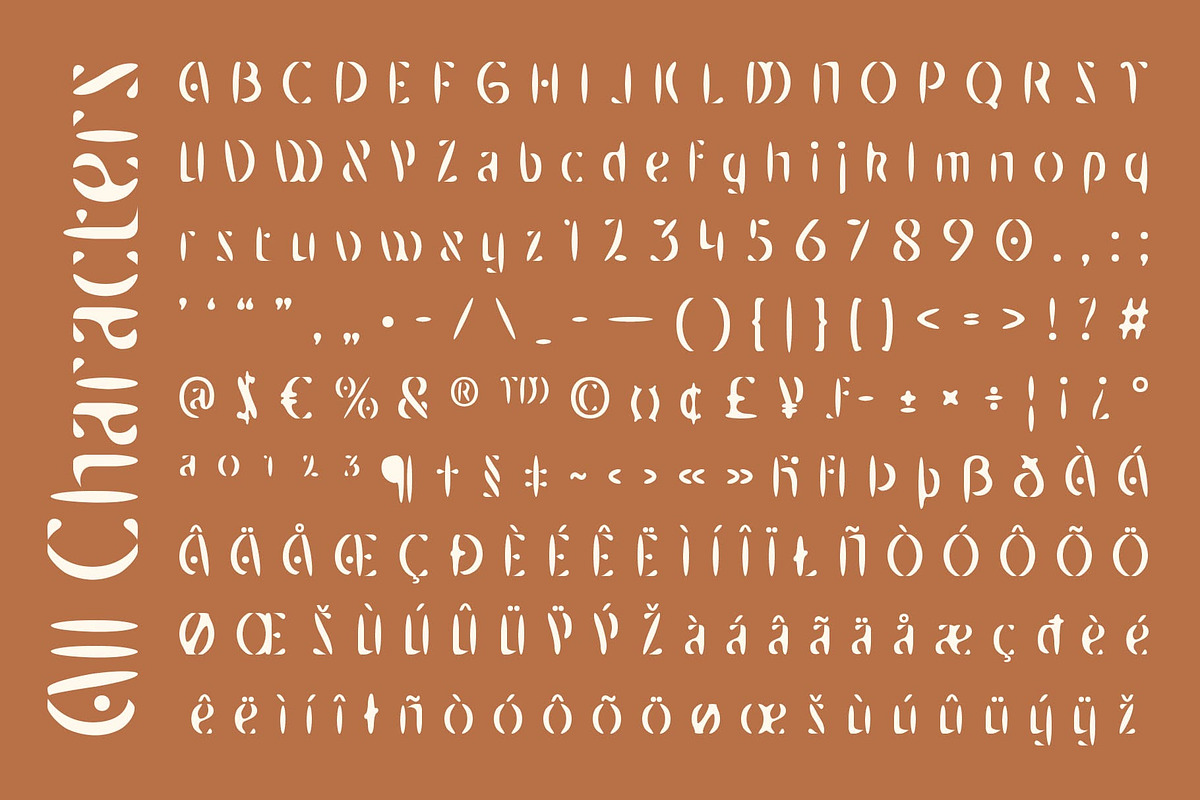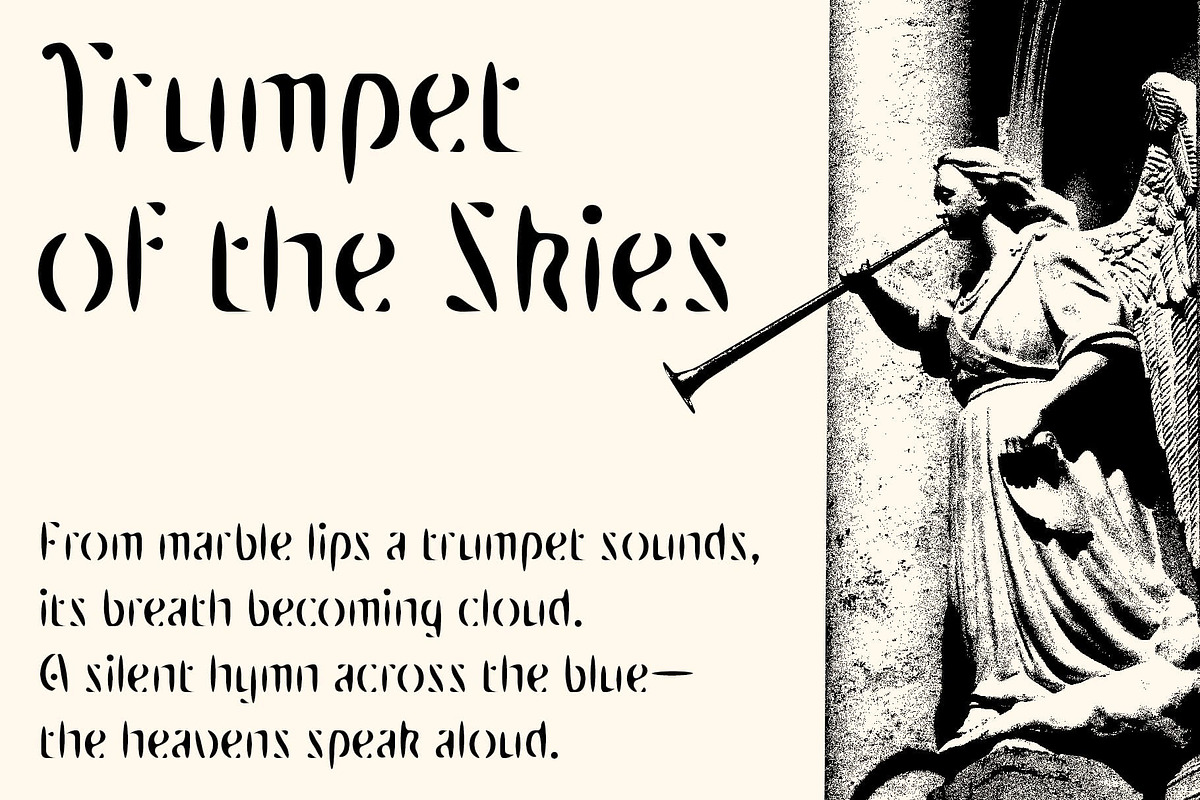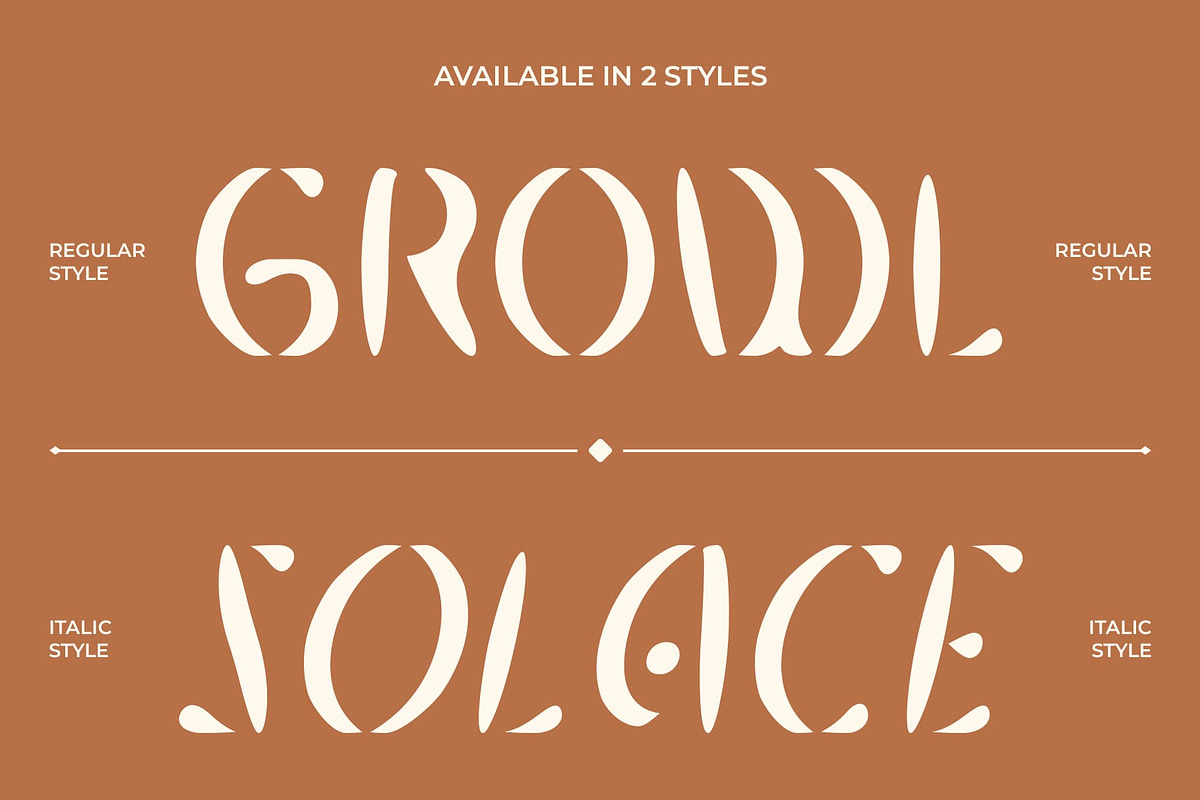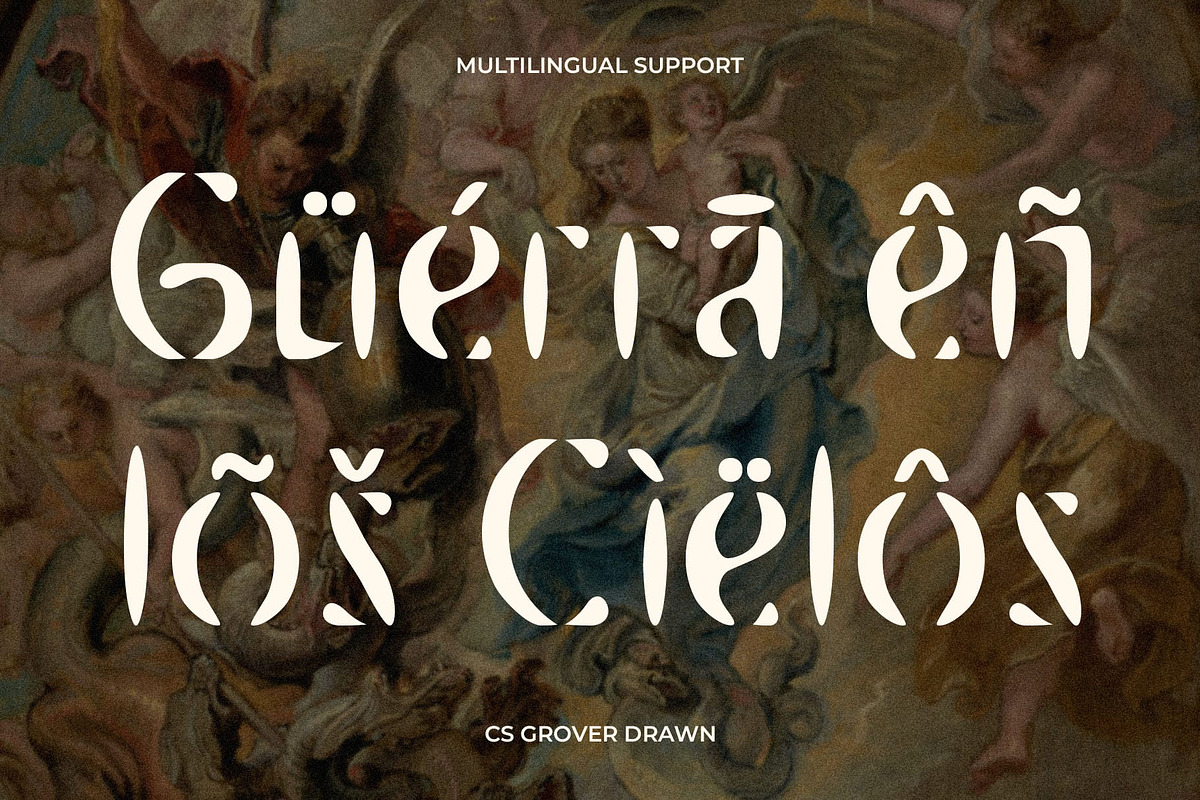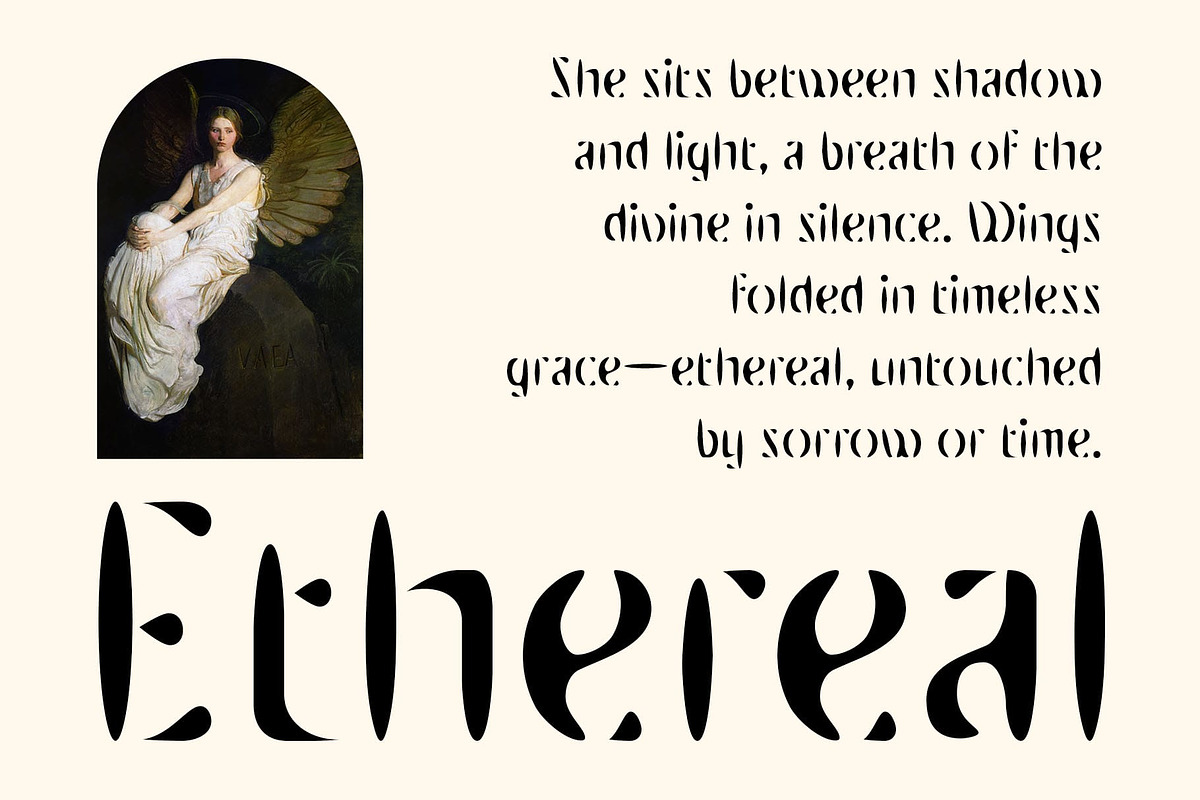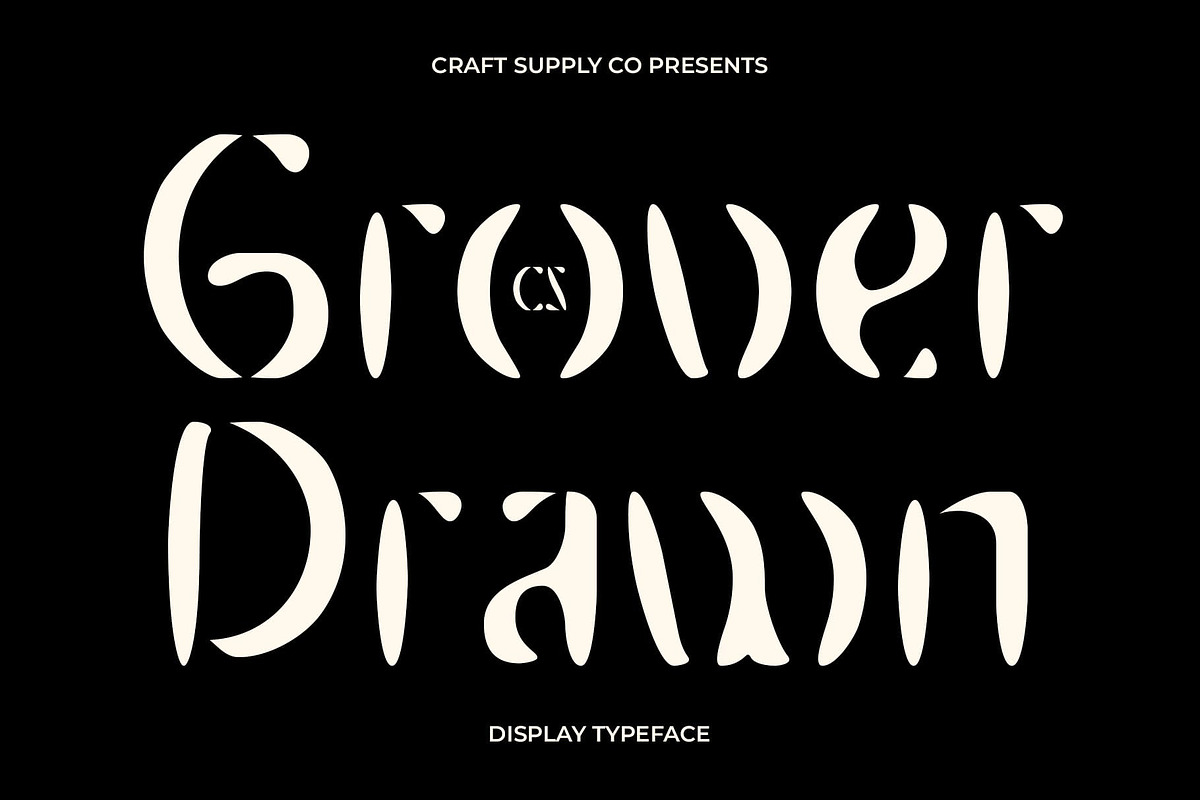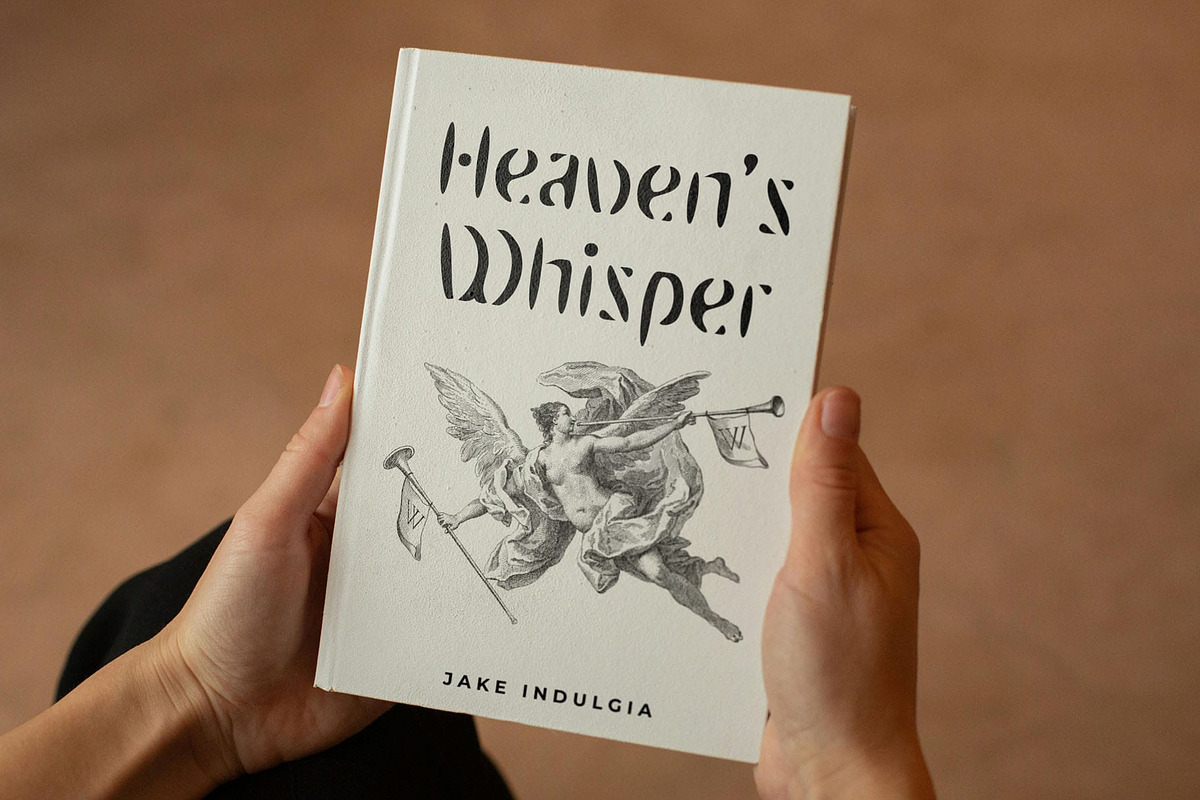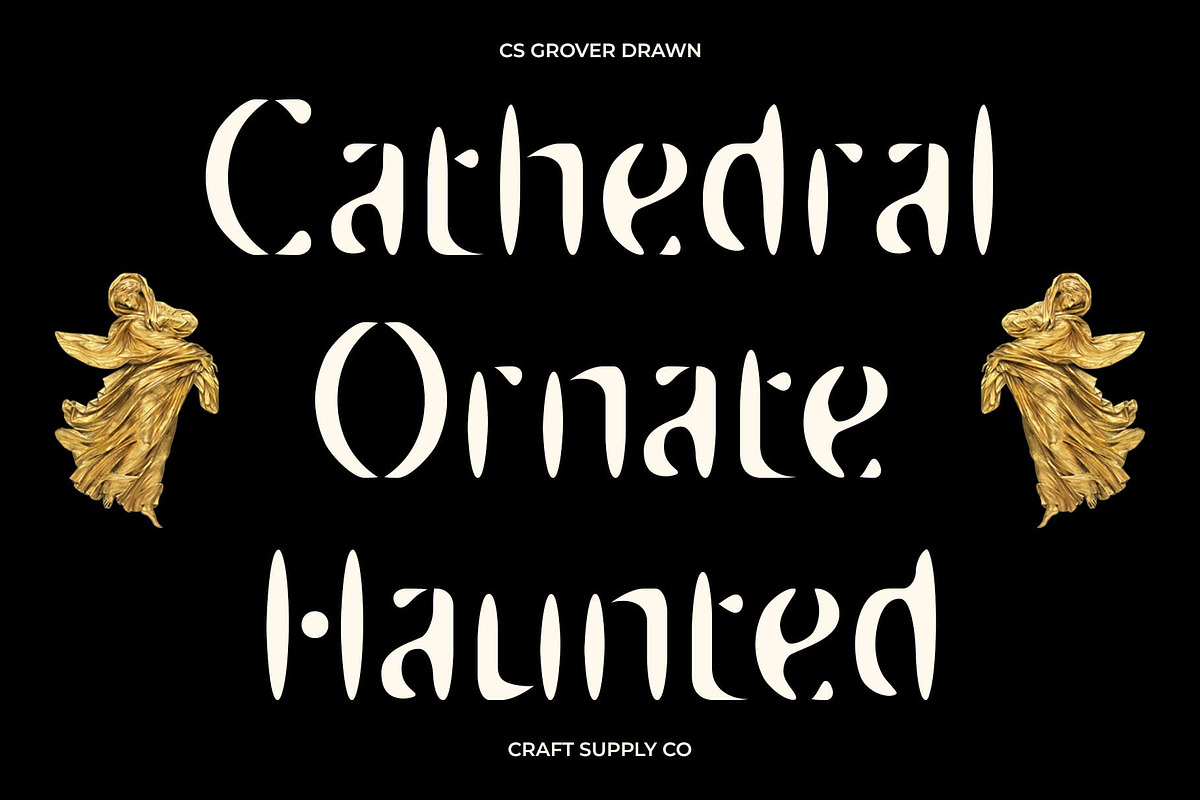
CS Grover Drawn
CS Grover Drawn – Artistic Display Font with Decorative and Drawn Flair
Modern Structure Meets Handcrafted Expression This is a modern display font that fuses bold decorative forms with a hand-drawn texture, resulting in a look that’s both sophisticated and organic. The font’s unique letterforms are enriched with ornamental curves and sketch-like details, bringing a sense of artistic spontaneity and creative individuality.
A Handmade Look with High Visual Impact While rooted in a clean and contemporary structure, each letter is imbued with drawn irregularities and textured strokes, evoking the energy of handcrafted artwork. This gives the font a dynamic, expressive presence, making it feel alive and full of personality.
Ideal for Creative and Statement-Making Designs This artistic and creative font is perfect for designers seeking to create bold, stylish, and attention-grabbing visuals. Use it in art-focused posters, editorial layouts, fashion branding, or any project that embraces visual experimentation and expressive identity.
A Display Typeface That Dares to Be Different With its decorative elegance, modern bones, and artistic imperfections, this expressive and playful font offers a balance between control and creativity, perfect for projects that need to stand out with flair. This font was made for designers who want their typography to reflect creativity, innovation, and bold personal expression. Use it to elevate editorial compositions, modern branding, or any design that thrives on artistic identity and visual impact.